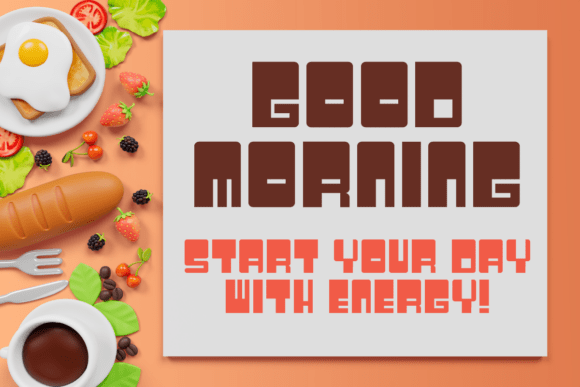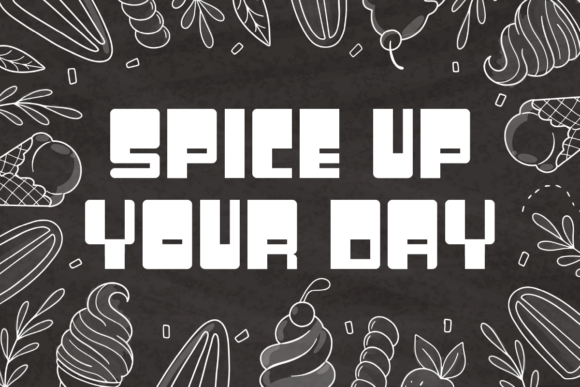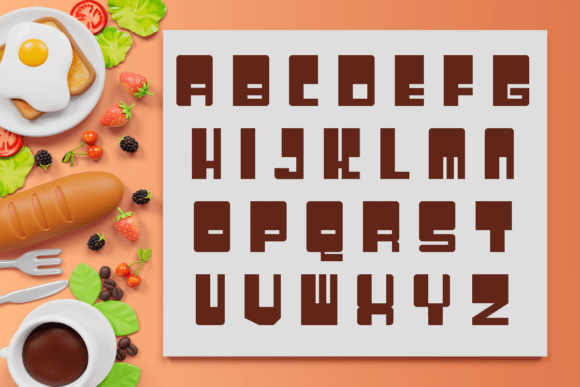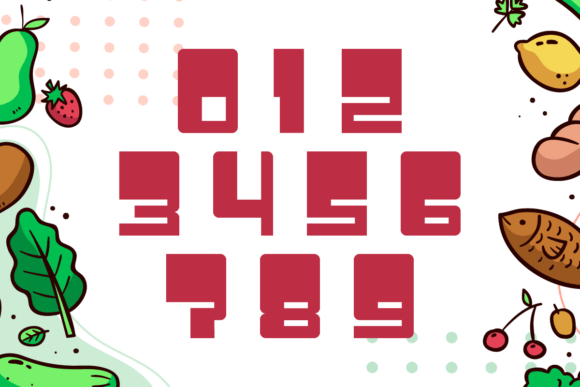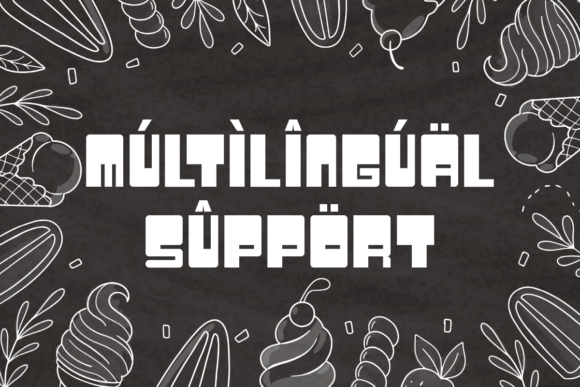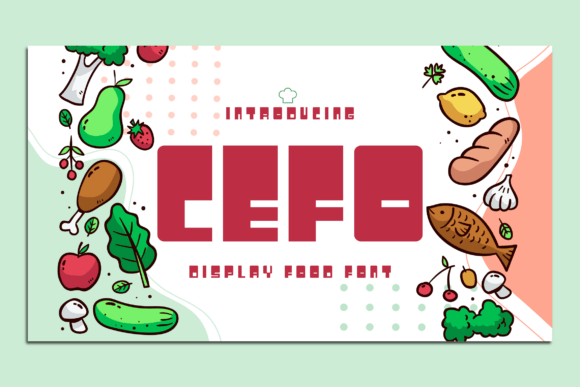
Introducing Cefo Font: The Ultimate Display Font for Foodies and Designers
Are you a food blogger, chef, or designer looking for a font that can add a dash of fun and freshness to your creative projects? Look no further than Cefo Font, a bold and quirky display font that’s specifically designed to bring a playful energy to your designs. Inspired by the colorful world of culinary ingredients, Cefo is the perfect font for food branding, restaurant menus, children’s packaging, cooking YouTube thumbnails, organic product labels, and cheerful promotional designs.
The Inspiration Behind Cefo Font
Cefo Font is inspired by the vibrant and eclectic world of food, where colors, textures, and shapes come together to create a sensory experience. The font’s creator aimed to capture the essence of this world by blending chunky geometric shapes with a clean modern style, resulting in a unique and eye-catching font that’s sure to stand out in any layout.
Key Features of Cefo Font
- Bold and Quirky: Cefo Font is a bold and quirky display font that’s designed to make a statement. Its chunky geometric shapes and clean modern style make it perfect for headlines and short text.
- Handcrafted Vibe: Cefo Font has a friendly, handcrafted vibe that adds a touch of personality to any design. Its strong blocky letters and playful energy make it ideal for designs that require a bit of whimsy.
- Versatile: Cefo Font is a versatile font that can be used for a wide range of design projects, from food branding and restaurant menus to children’s packaging and cooking YouTube thumbnails.
- Unique Personality: Cefo Font has a unique personality that sets it apart from other fonts. Its blend of geometric shapes and clean modern style makes it a one-of-a-kind font that’s sure to grab attention.
Use Cases for Cefo Font
Cefo Font is a versatile font that can be used for a wide range of design projects, including:
- Food Branding: Use Cefo Font to create eye-catching logos, packaging, and marketing materials for your food brand.
- Restaurant Menus: Add a touch of fun and freshness to your restaurant menu with Cefo Font.
- Children’s Packaging: Cefo Font is perfect for children’s packaging, adding a playful and whimsical touch to your designs.
- Cooking YouTube Thumbnails: Use Cefo Font to create attention-grabbing thumbnails for your cooking YouTube channel.
- Organic Product Labels: Cefo Font is ideal for organic product labels, adding a touch of freshness and naturalness to your designs.
- Cheerful Promotional Designs: Use Cefo Font to create cheerful and eye-catching promotional designs for your brand.
Why Choose Cefo Font?
Cefo Font is a unique and versatile font that’s perfect for designers and crafters looking to add a touch of fun and freshness to their designs. Here are just a few reasons why you should choose Cefo Font:
- Unique Design: Cefo Font has a unique design that’s sure to stand out in any layout.
- High-Quality: Cefo Font is a high-quality font that’s designed to deliver exceptional results.
Cefo Font is a bold and quirky display font that’s perfect for foodies and designers looking to add a touch of fun and freshness to their creative projects. With its unique design, handcrafted vibe, and versatile use cases, Cefo Font is an excellent choice for anyone looking to create eye-catching designs that stand out from the crowd. Whether you’re a food blogger, chef, or designer, Cefo Font is a must-have font that’s sure to deliver exceptional results.